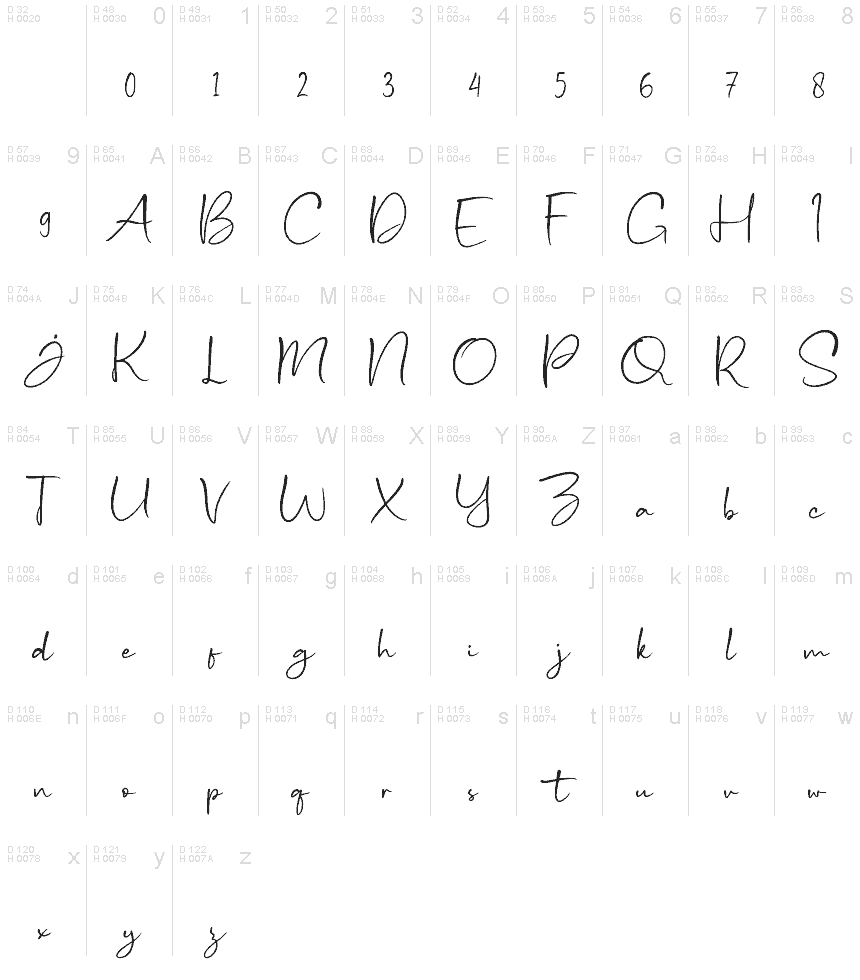
Batsy Regular
Batsy font is a handwritten font. Its letters fluctuate in height, giving the free modern display font an expressionist style that draws in viewers and keeps them engaged. The work showcases artistic and fluid, yet slightly jagged features for a well-balanced design that can be easily used for typography art pieces.